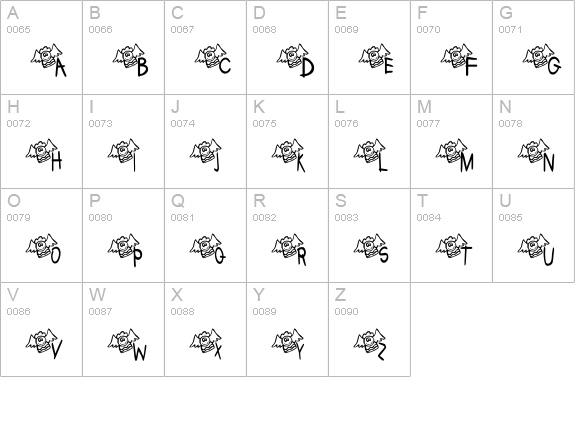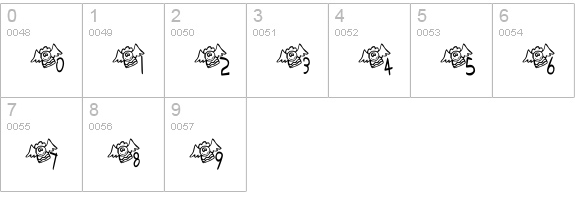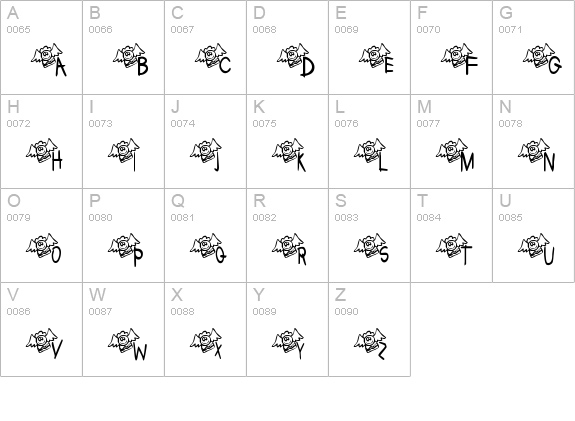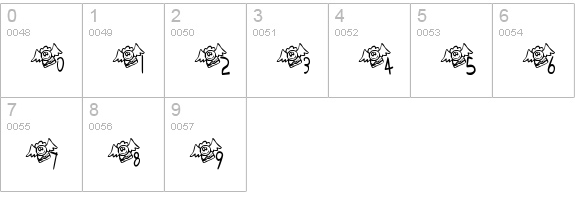
KR Lil Angel font is a whimsical and charming typeface that exudes a sense of innocence and playfulness. With its delicate and flowing letterforms, this font is perfect for adding a touch of sweetness to any design project. Whether you're creating invitations, greeting cards, or branding materials, KR Lil Angel font will bring a touch of magic to your work. Best of all, KR Lil Angel font is completely free to download at FontsMarket.com. This means you can add this delightful font to your collection without any cost. Don't miss out on the opportunity to enhance your designs with the enchanting beauty of KR Lil Angel font. Download it now and let your creativity soar!